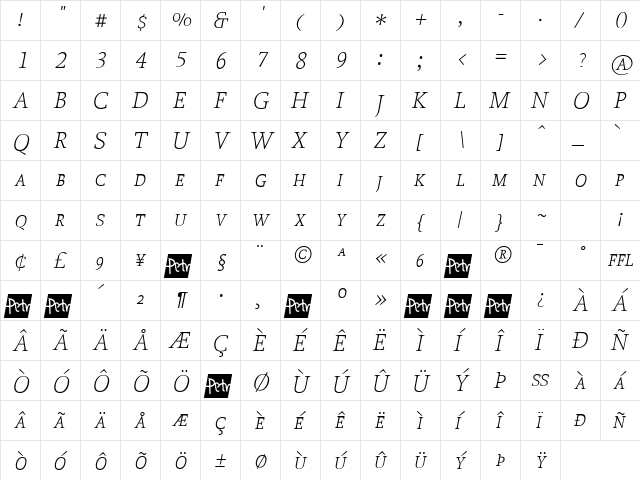
Proforma UltraLightItalicSC Font Preview
Proforma UltraLightItalicSC
Design Context for Proforma Typeface
Proforma is a composed and adaptable typeface that performs quietly and consistently across a wide range of design contexts. The dynamic lean of this cut emphasises speed and emphasis in any layout. The delicate stroke weight brings airiness and refinement to layouts.
Pro Tip: Try Proforma for annotation and caption copy alongside an upright companion — the contrast in angle creates a dynamic but ordered typographic system.